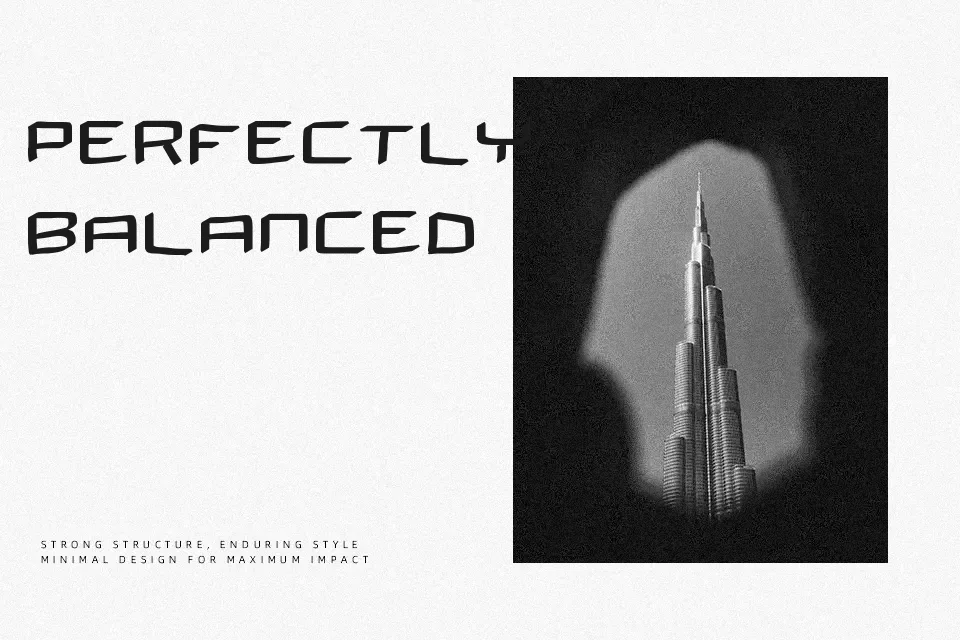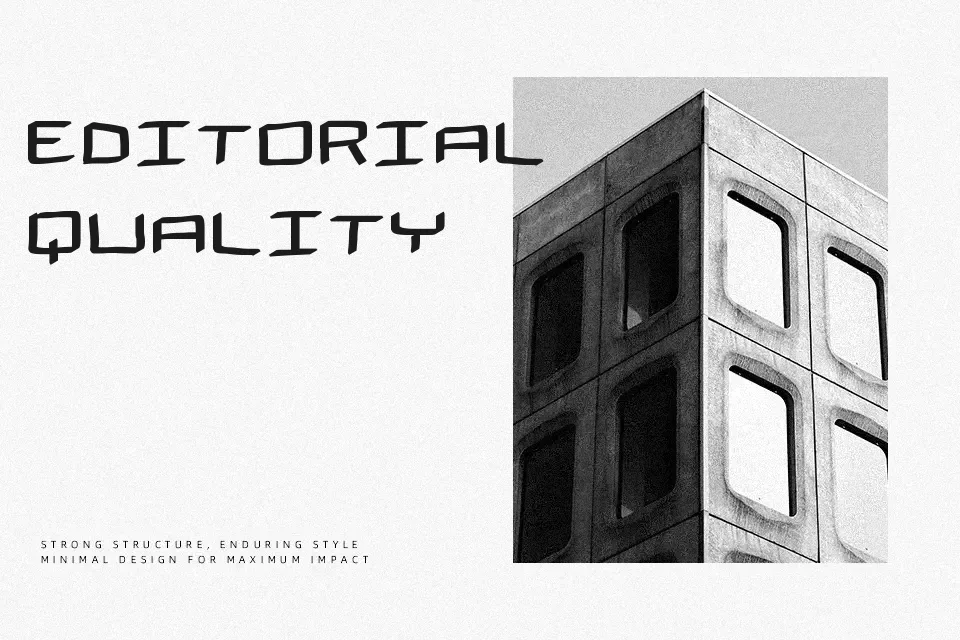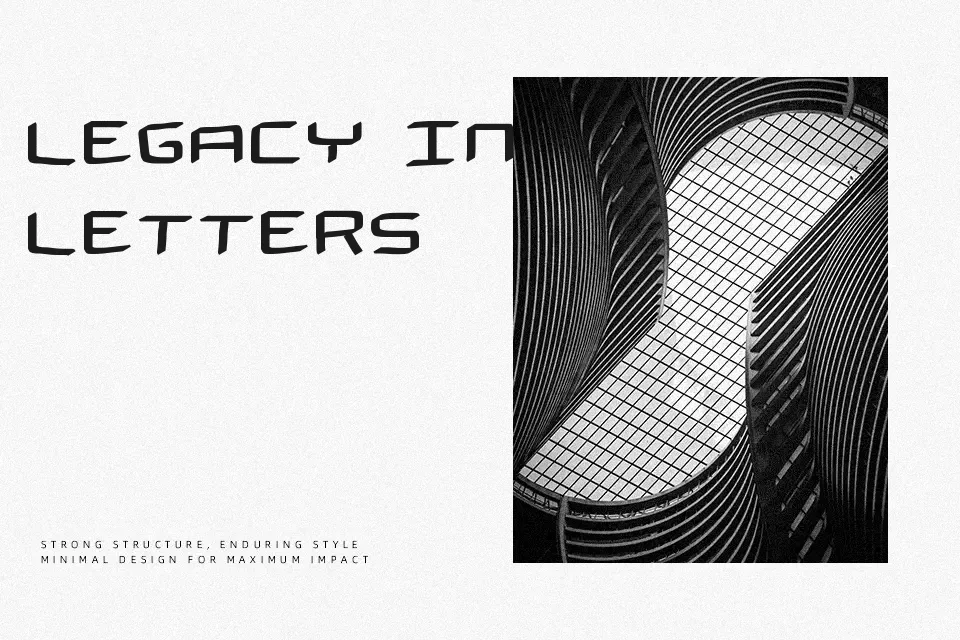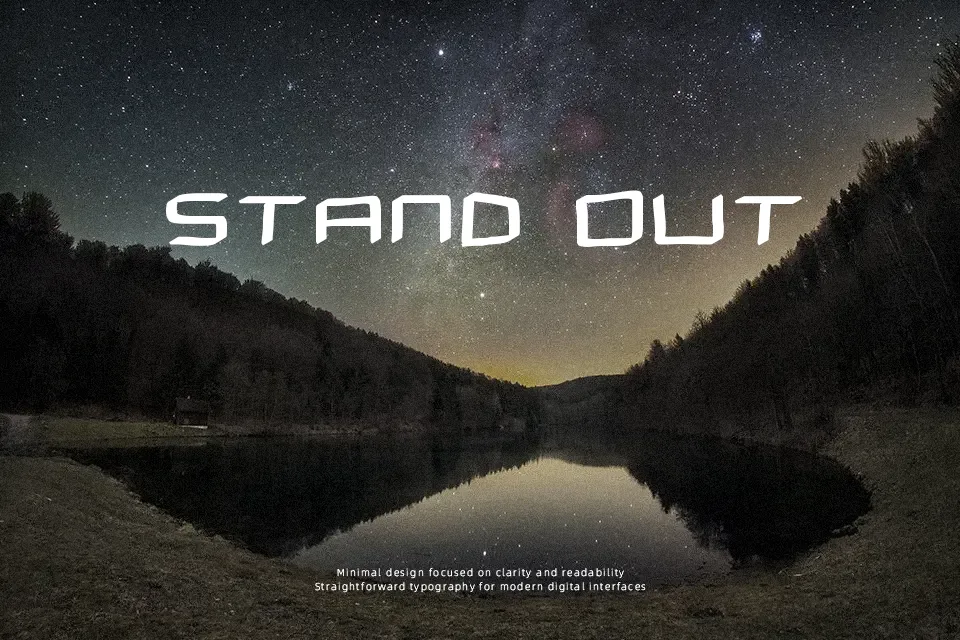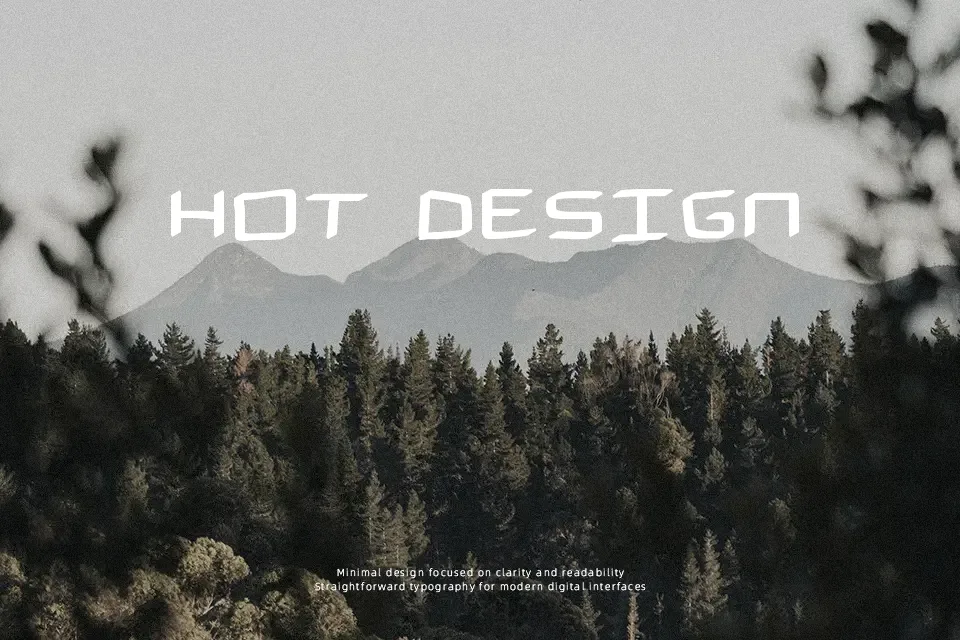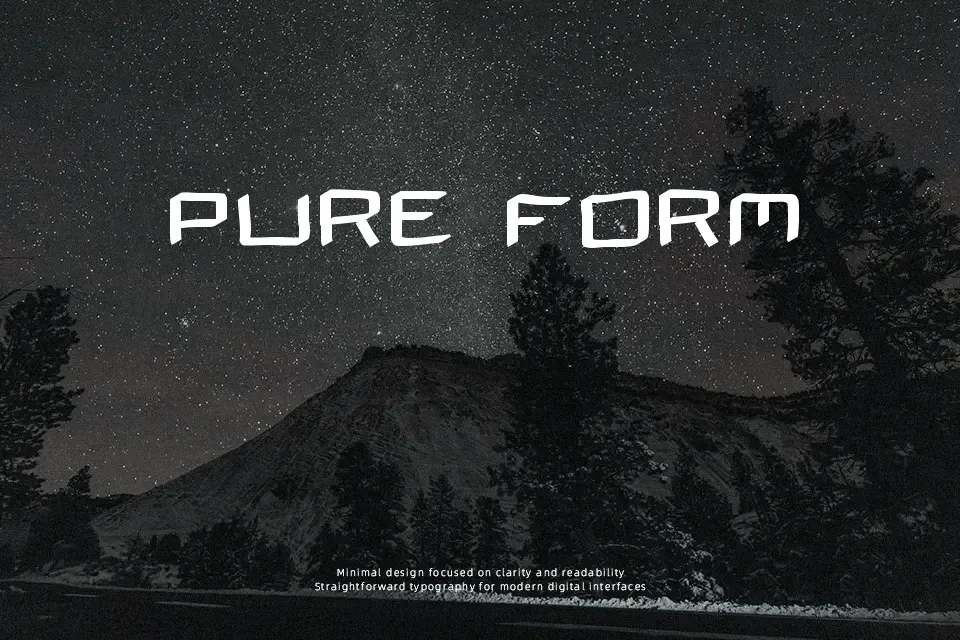
The Spaceman Font
Designed by Geronimo Font Studios
The Spaceman Font establishes an assertive visual identity through heavy monoline strokes, angular corner cuts, and wide, squared proportions. Constructed with uniform thickness and generous character spacing, the typeface maintains consistent rhythm across uppercase headlines and short display phrases. The open letterforms provide strong legibility when rendered at poster scale or across digital title cards, making the design suitable for arcade banners, science fiction branding, and technology packaging. However, the rigid geometry and absence of delicate typographic nuance impair comfort during continuous reading. Dense body text or compact interface labels quickly become cluttered, so the design performs best reserved strictly for prominent display treatments.
– Sci-fi video game title screens
– Futuristic event posters
– Electronic music festival banners
– Themed apparel graphics
– Long paragraph text
– Mobile application body copy
– Dense editorial page layouts
– Technical documentation
Perfect for gaming, headline, and logo, with a bold and decorative style.